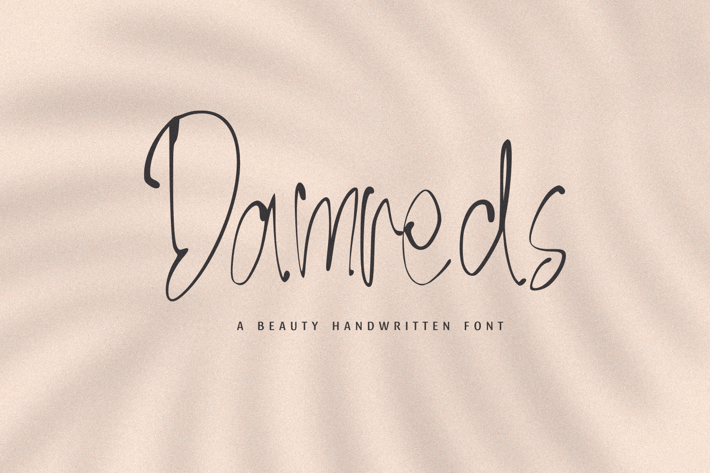
Damreds - The Beauty Handwritten Font
Damreds - The Beauty Handwritten Font, every single letter has been carefully crafted to make your text looks beautiful. it's perfect for logos, name cards, magazine layouts, invitations, headers, or even large-scale artwork.
- Damreds font including upper & lowercase characters, numerals and more of symbols.